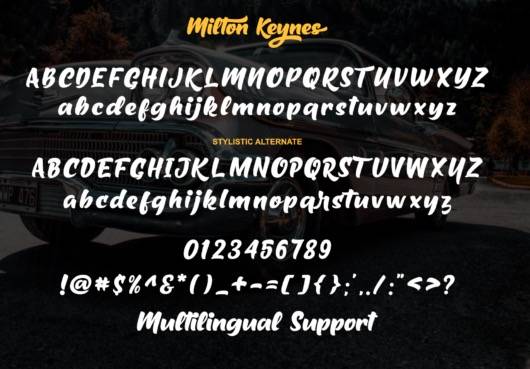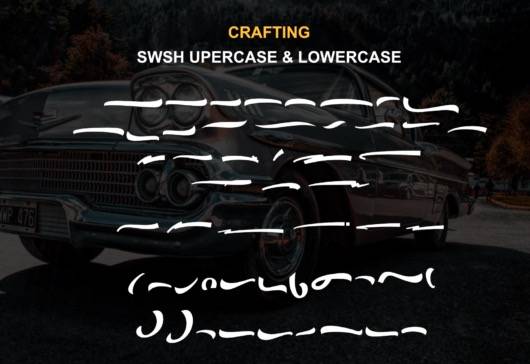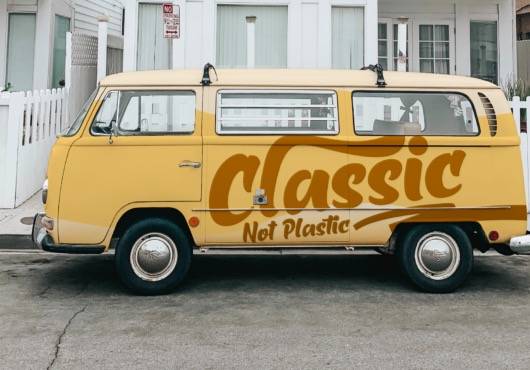
Introducing Milton Keynes Font – handcrafted script font with a handwritten style. And this makes Milton Keynes font looks natural, elegant, stylish. It’s created and released by DUMADI.
Milton Keynes Font is made with a real brush pen. This modern script font delivers the dry brush effect, to create a natural look of the beautiful brush. Milton Keynes Bold Font is an exquisite brush font. It can be used for various purposes such as t-shirts, wedding invitations, signage’s, logos, letterheads, labels, and more.
Milton Keynes Bold Font